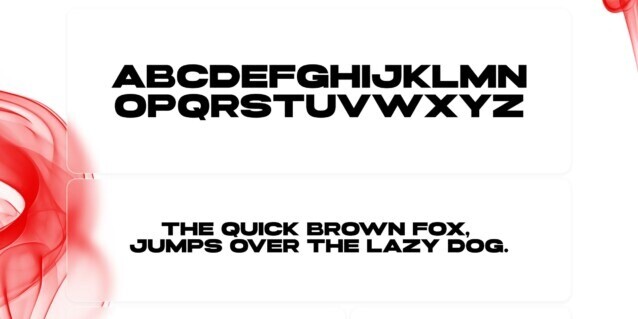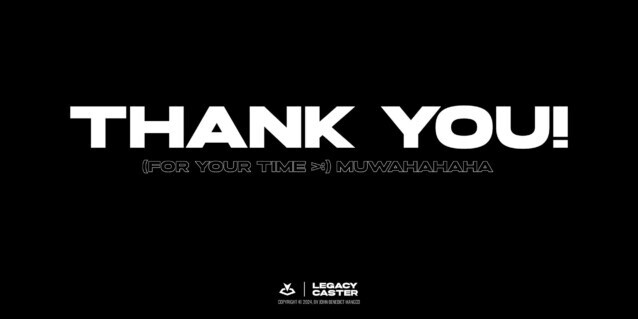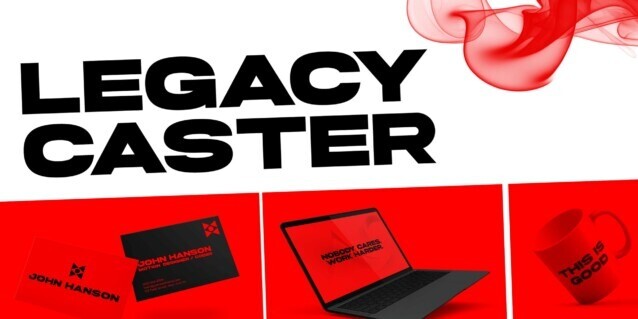
Legacy Caster Font
Legacy Caster embodies strength and resilience. Its bold strokes command attention wherever it’s used, and despite its commanding presence, the curves also convey a sense of calmness and control, adding sophistication to its lasting demeanor. The condensed spacing of the font enhances its impact, allowing each letter to unite into a single unit, making it ideal for conveying messages with precision and clarity. Legacy Caster stands as a symbol of victory and enduring legacy, ready to leave its mark on the world.